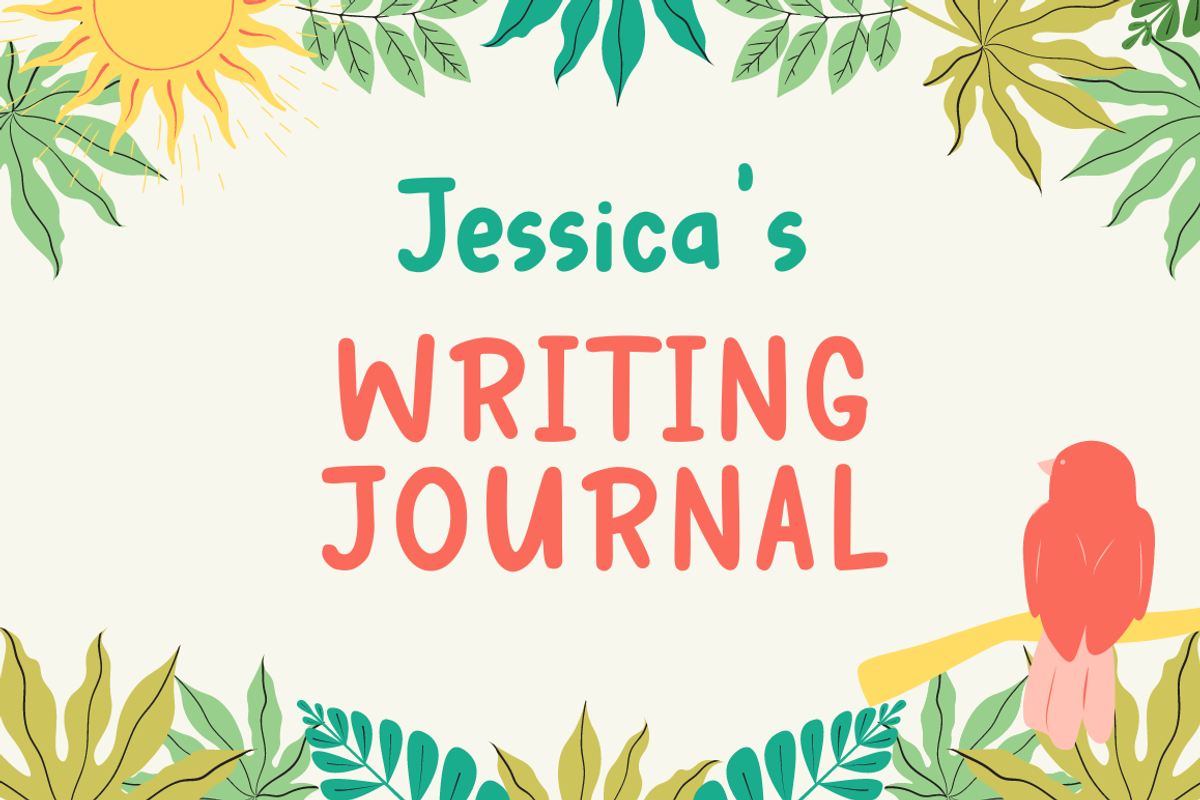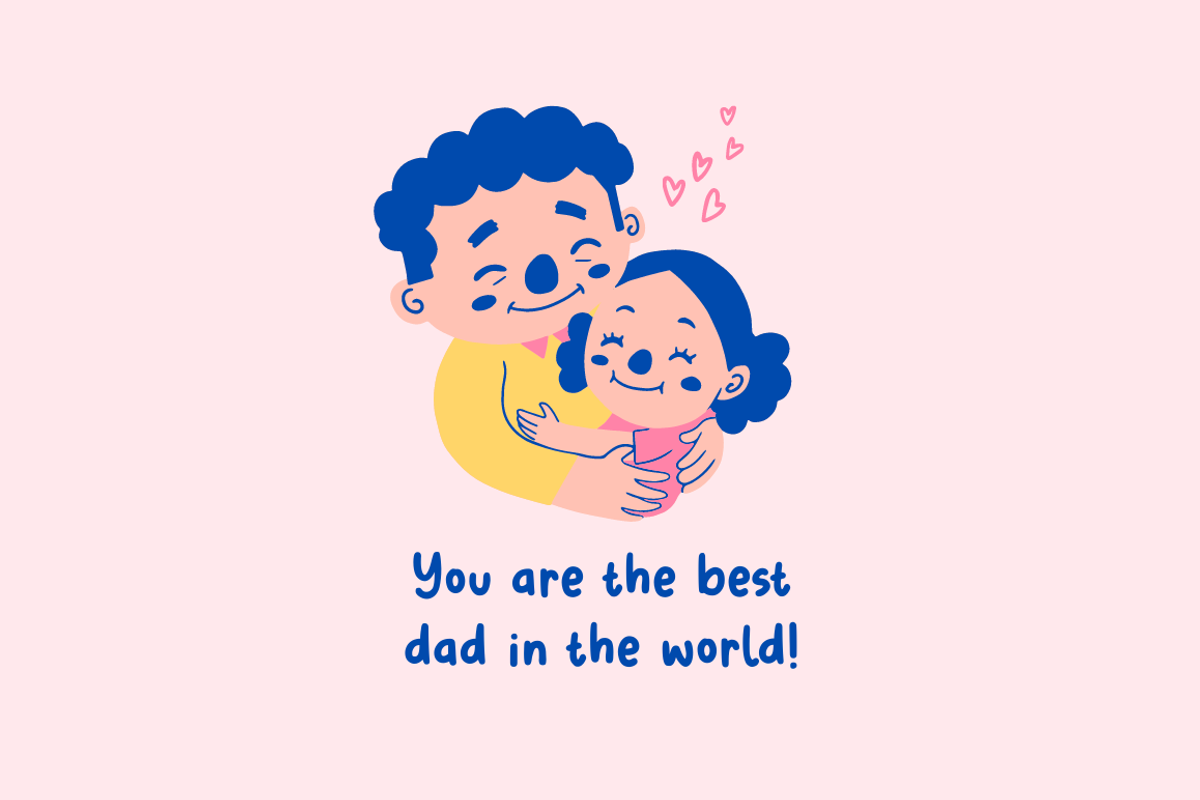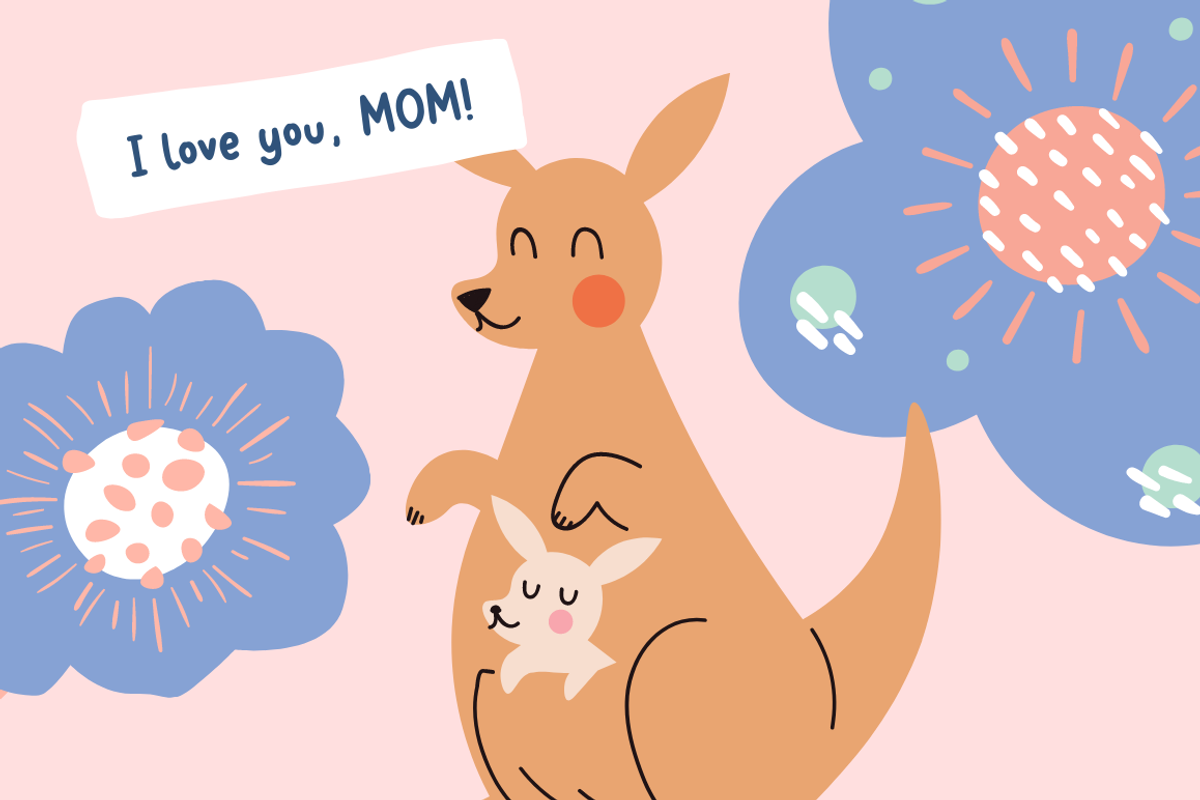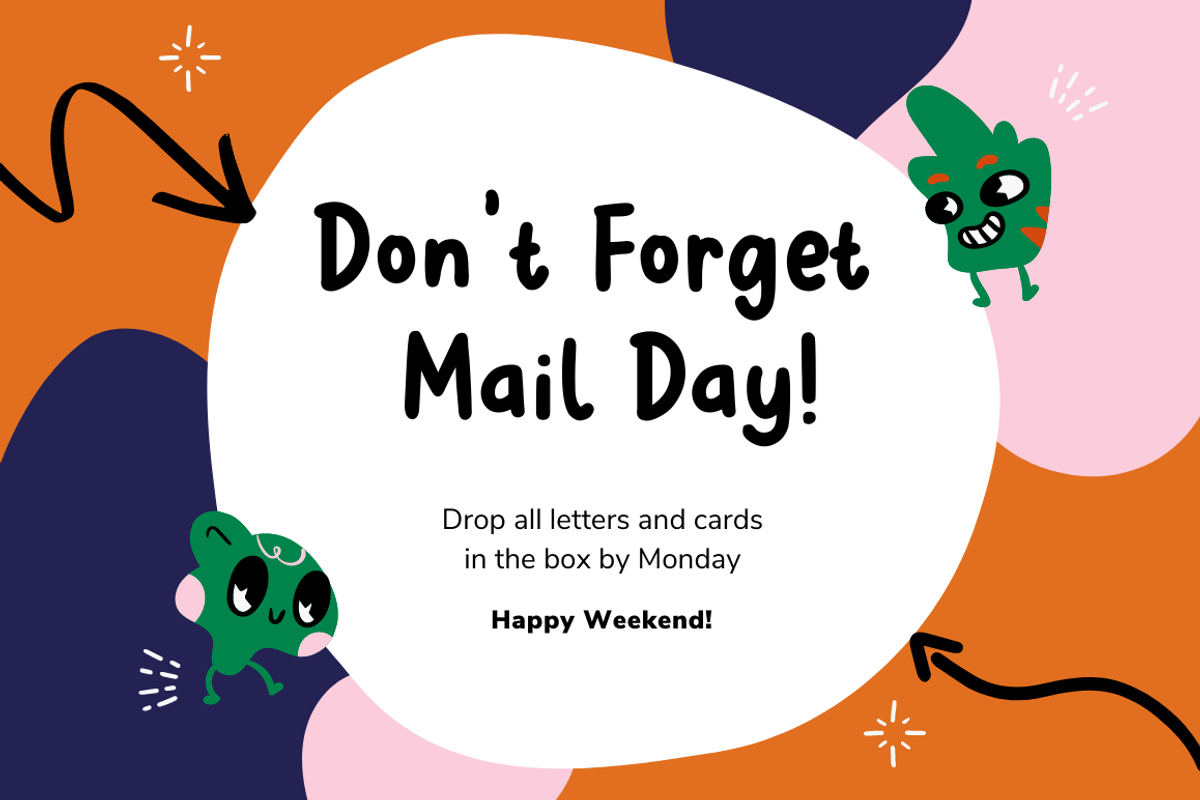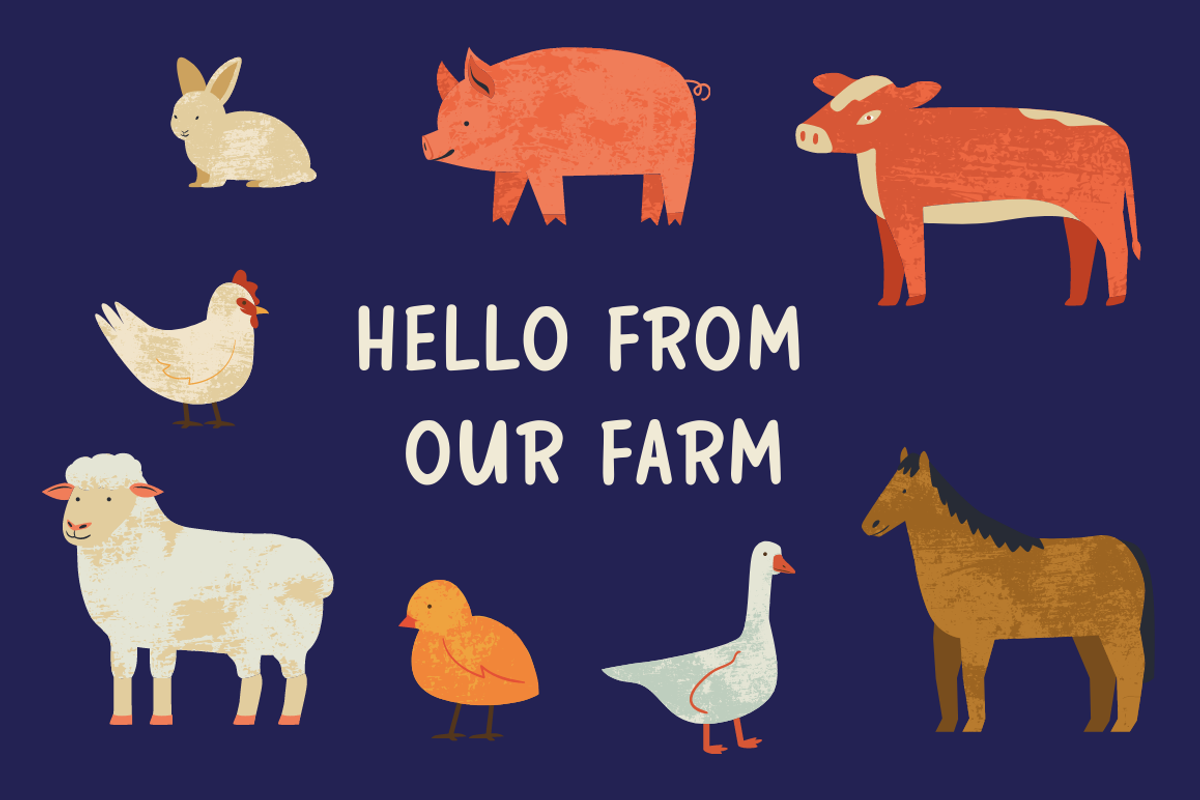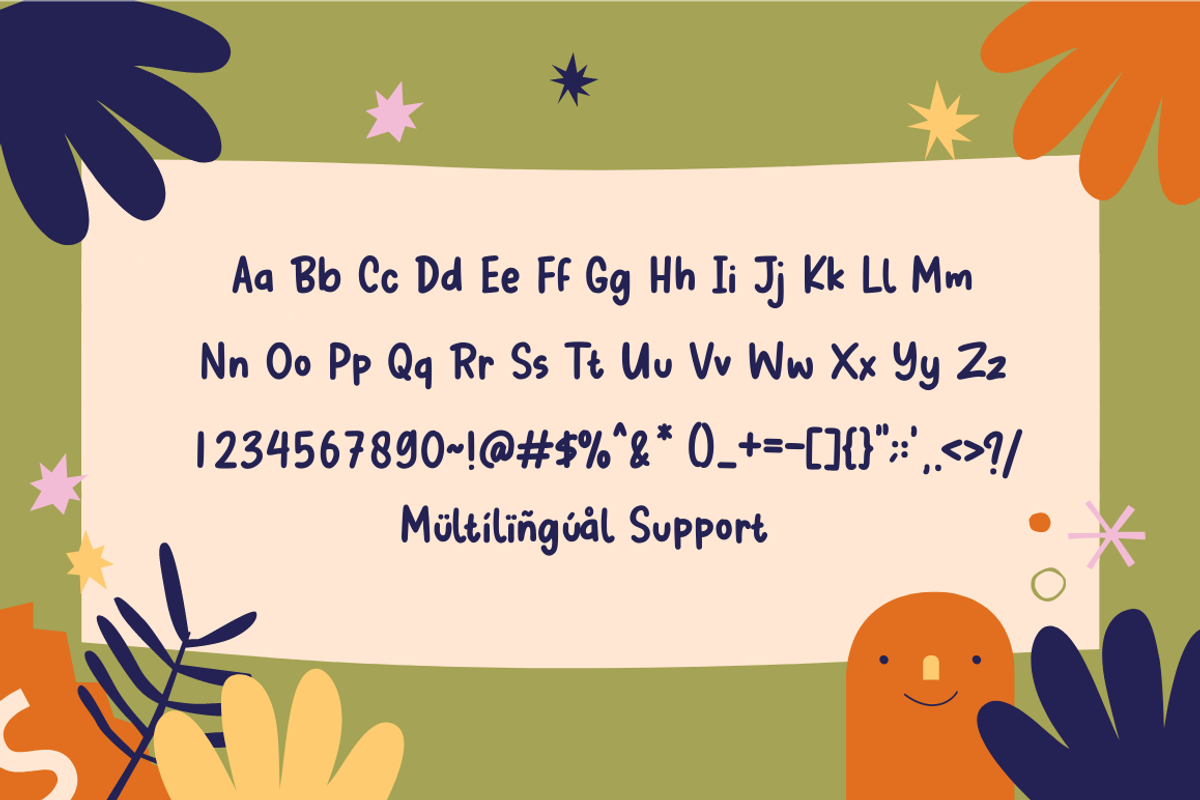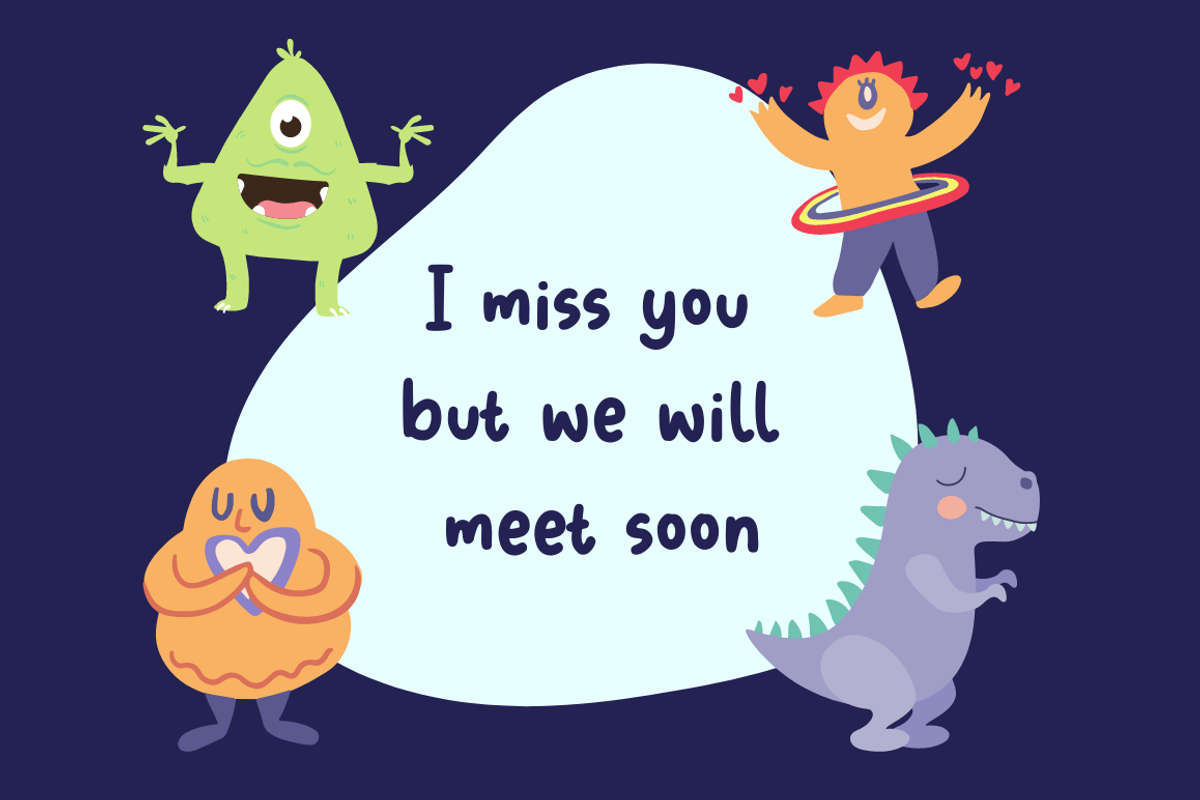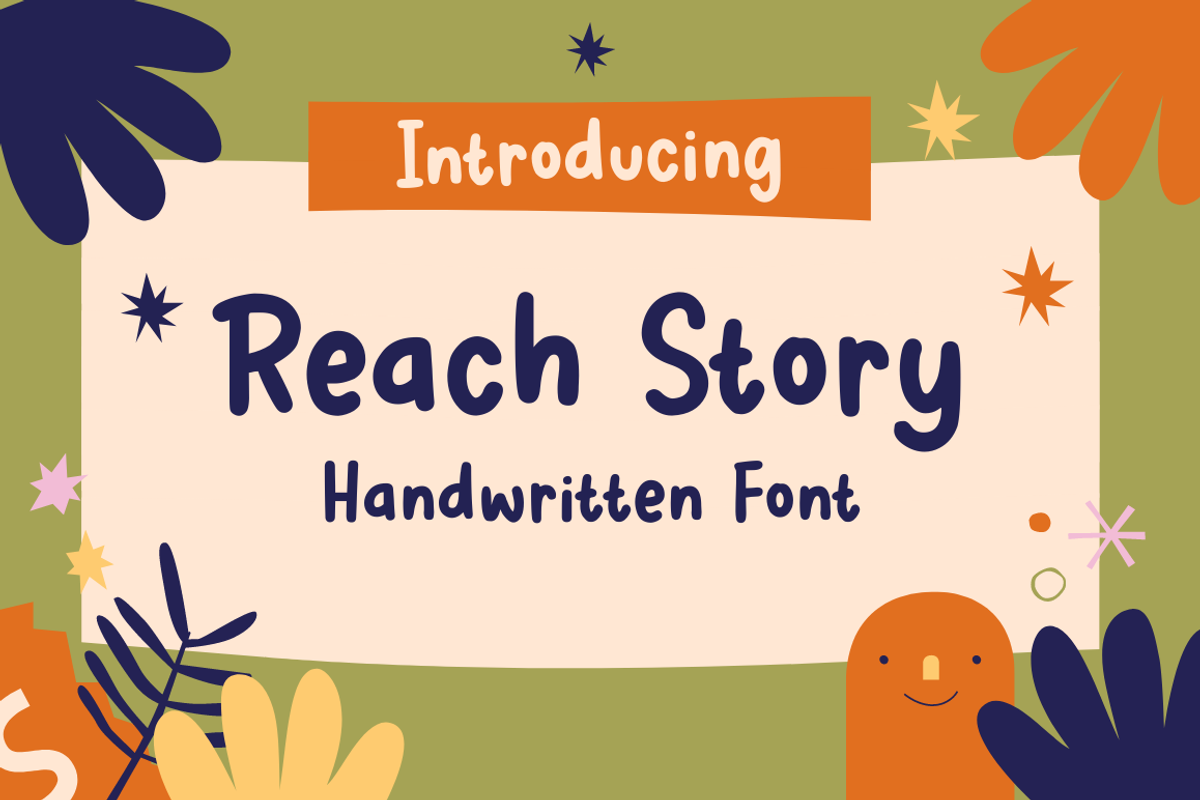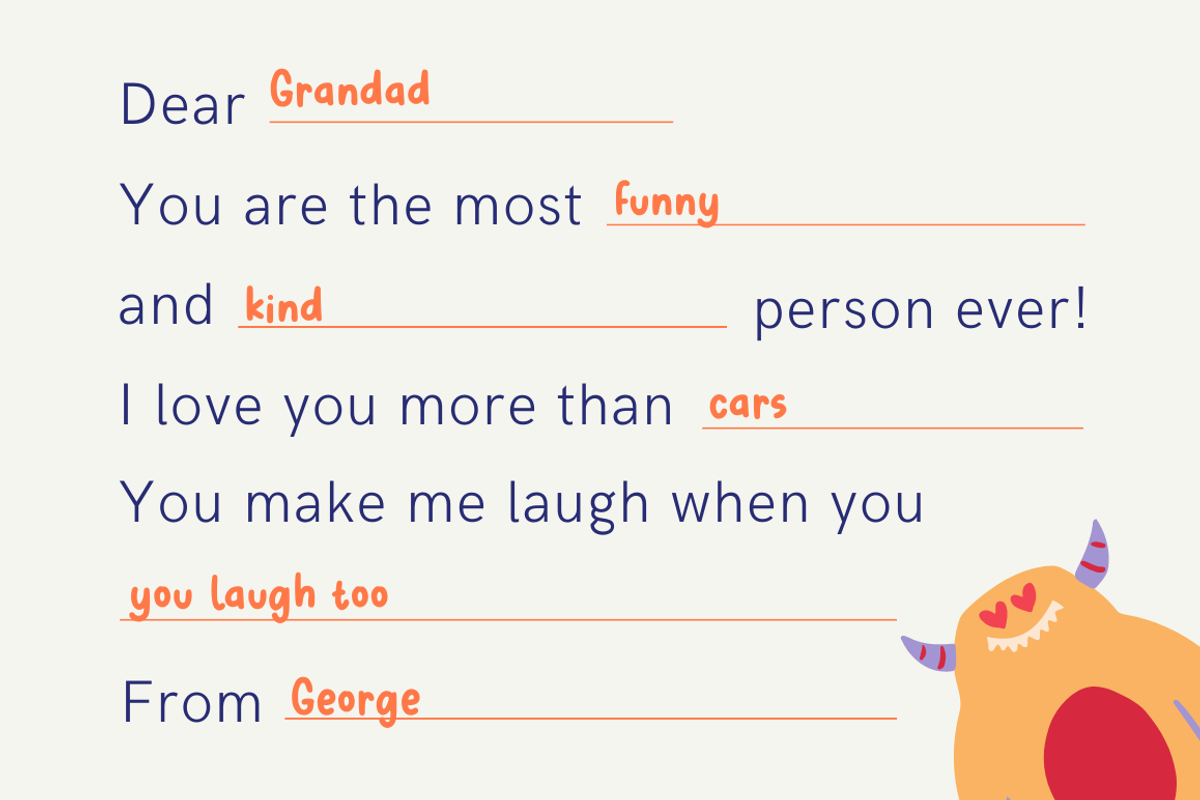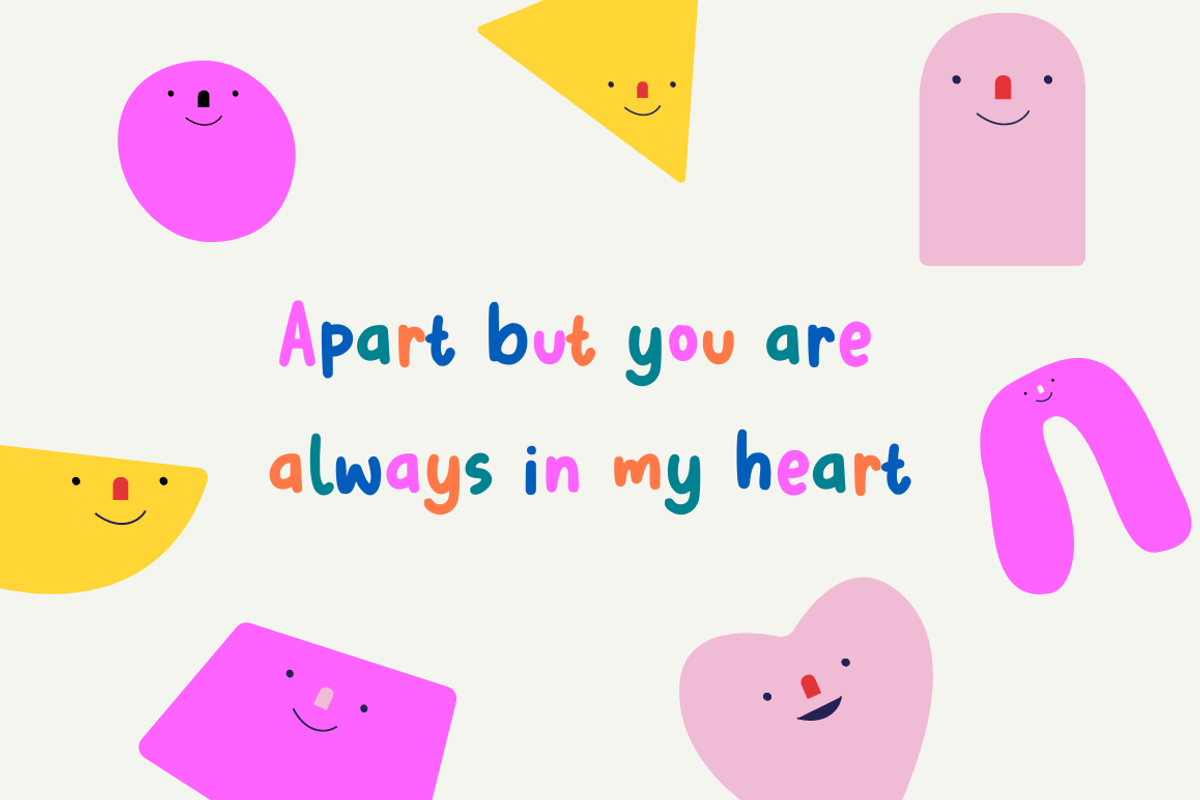
Reach Story - Handwritten Font
Reach Story is a Handwritten Font, this font Is perfect for product packaging, product designs, label, photography, watermark, special events, or anything.
Reach Story comes with uppercase and lowercase letters, multilingual symbols, numerals, punctuation.